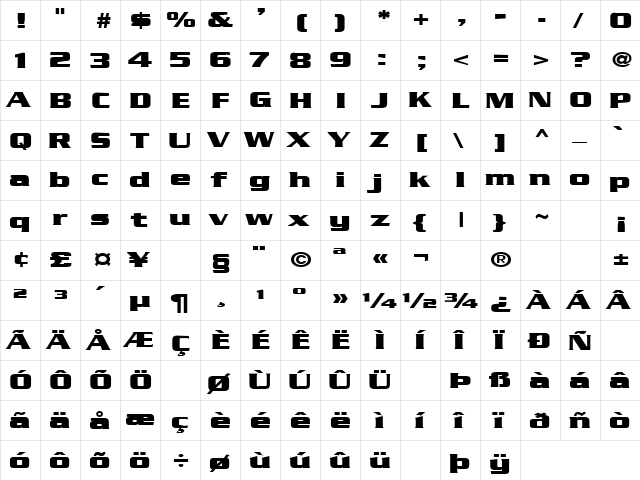
Stock Market 1 Regular
Design Context for Stock Market 1 Typeface
Stock Market 1 offers clean, dependable letterforms without strong stylistic allegiance, making it a practical choice for designers who need flexibility.